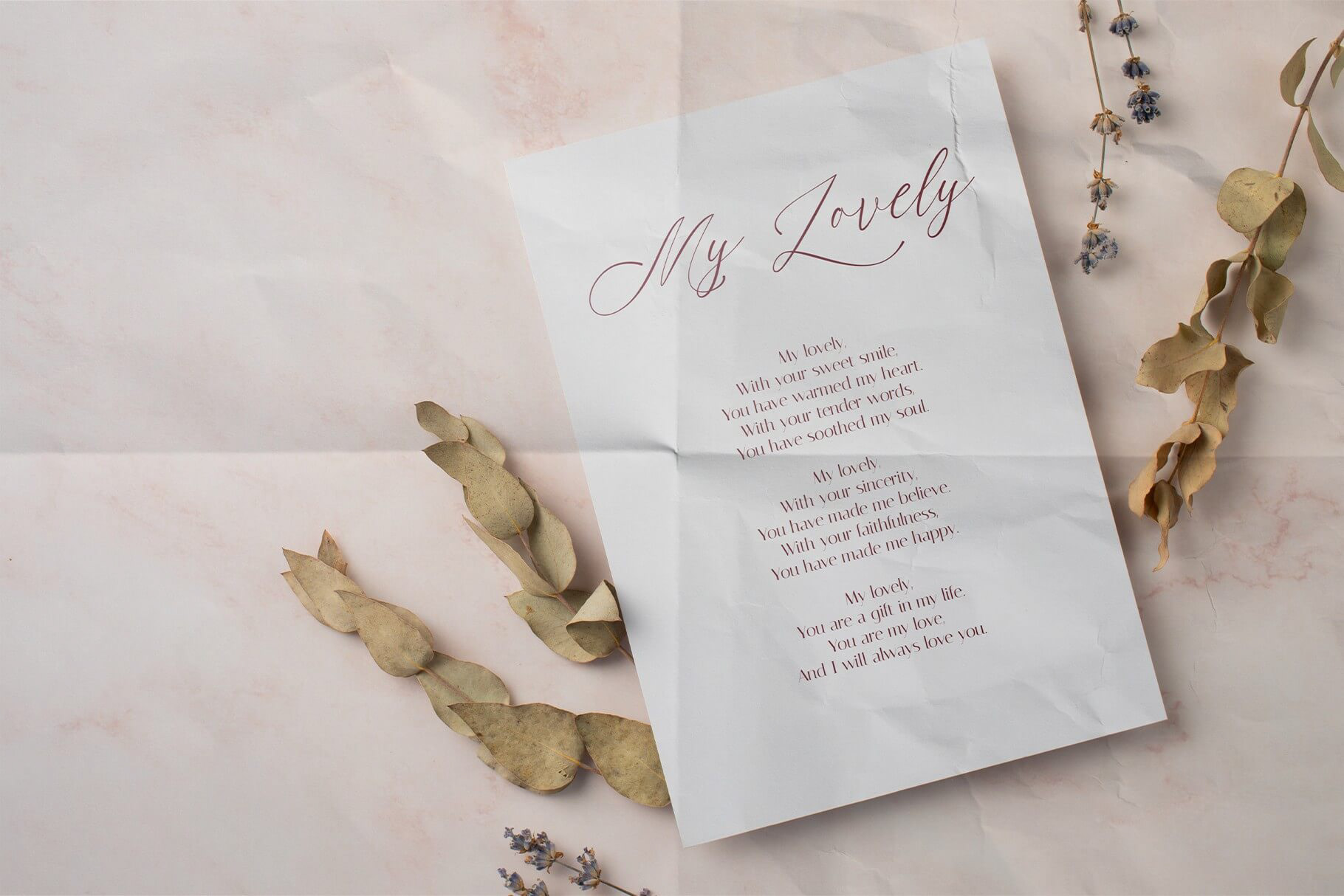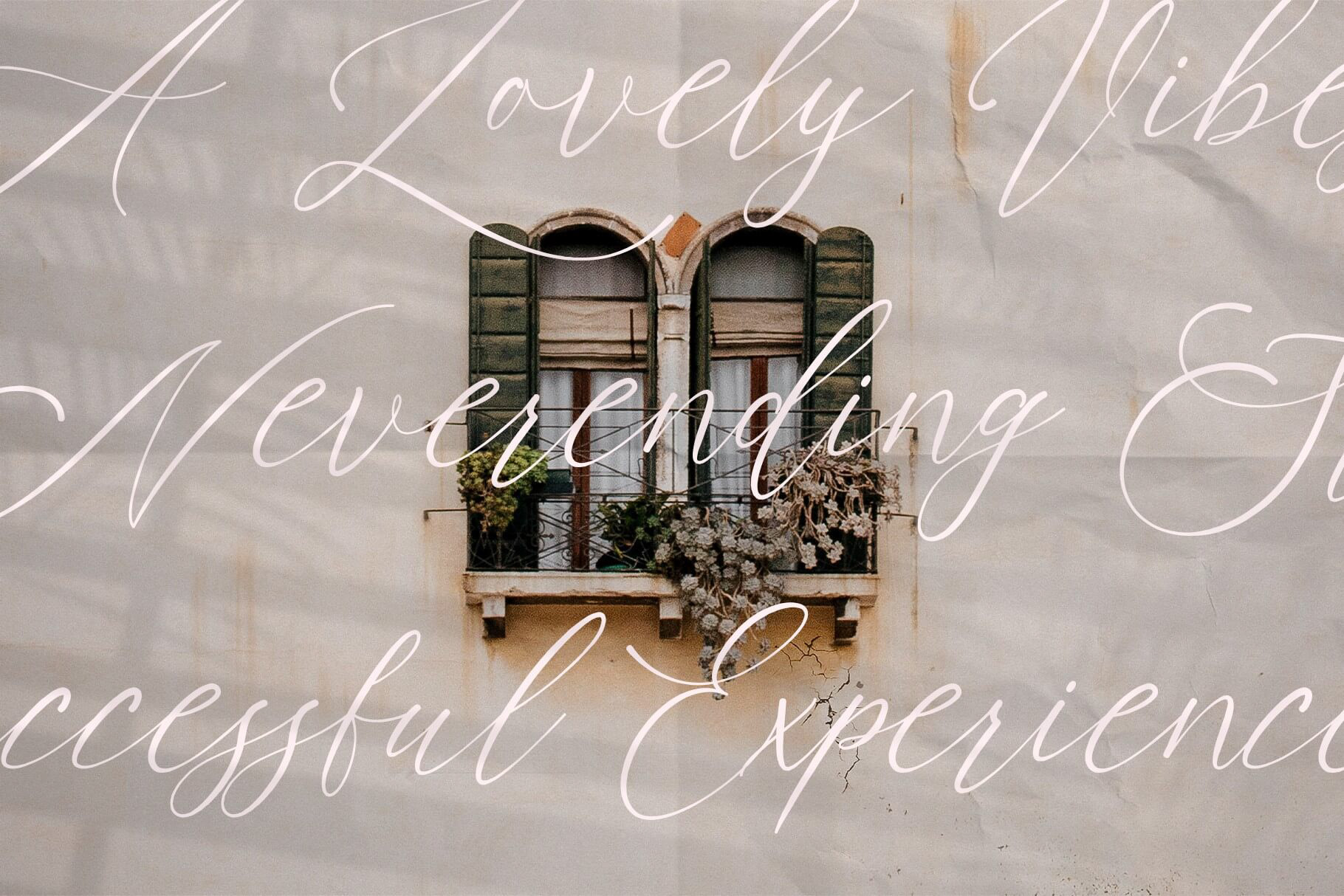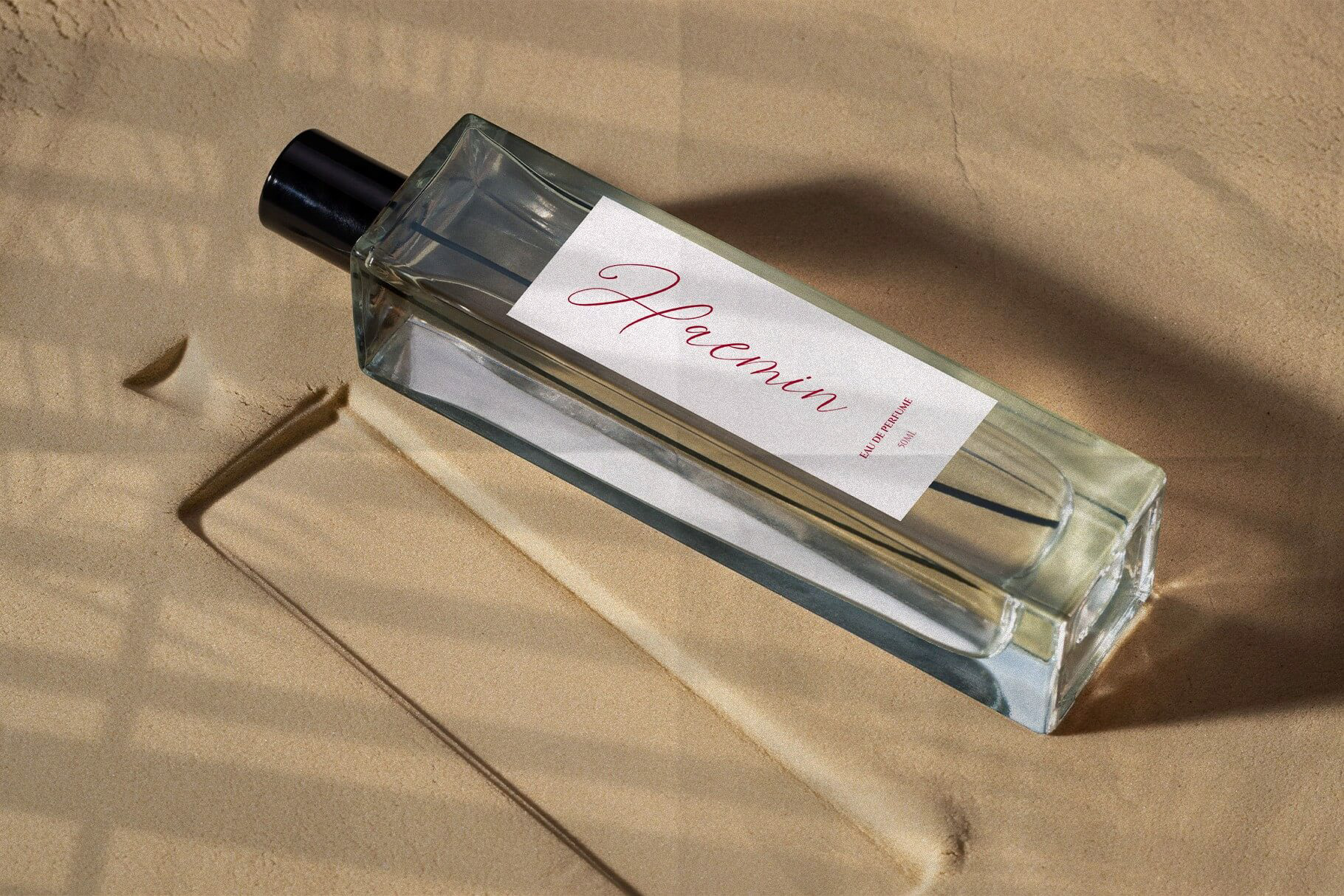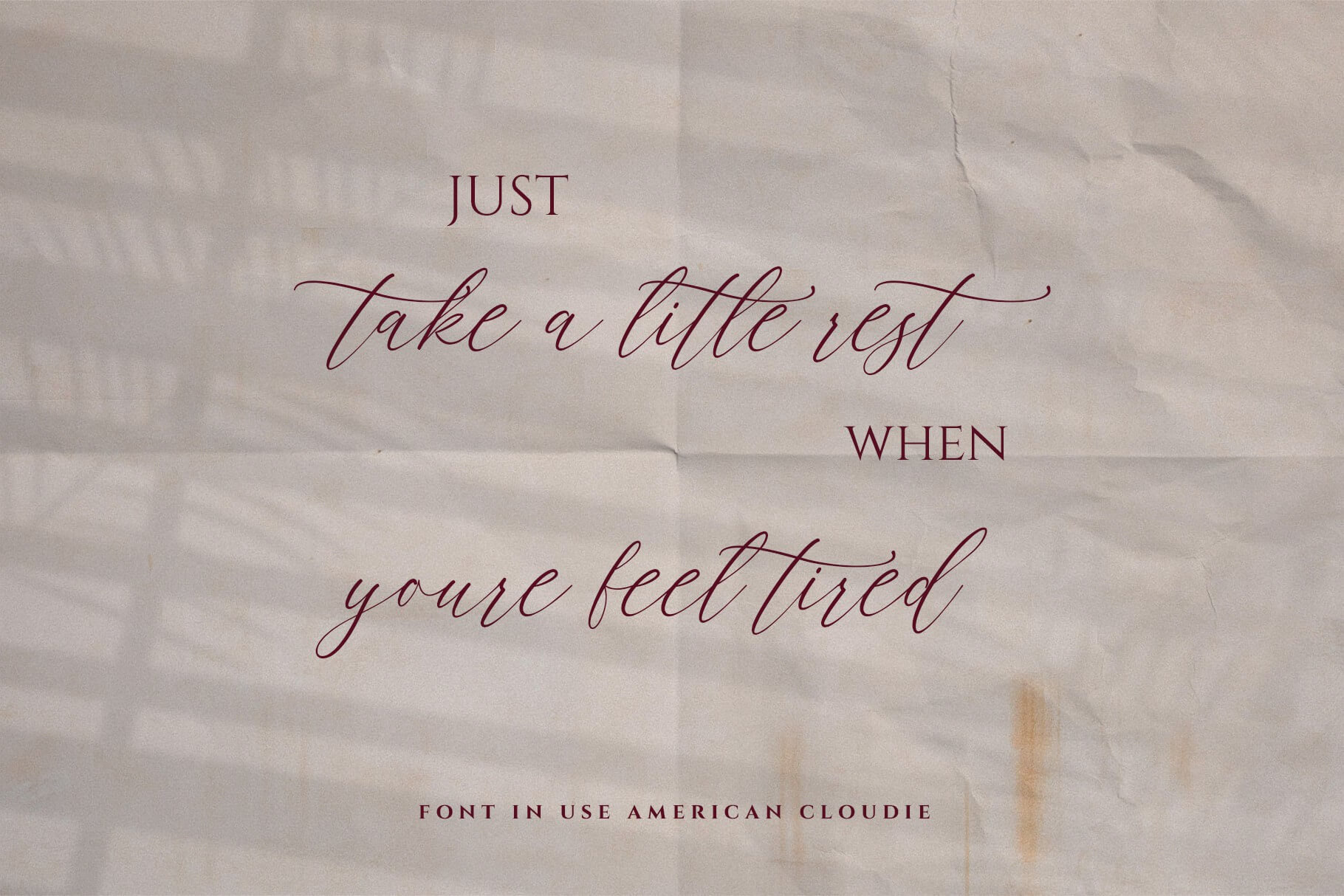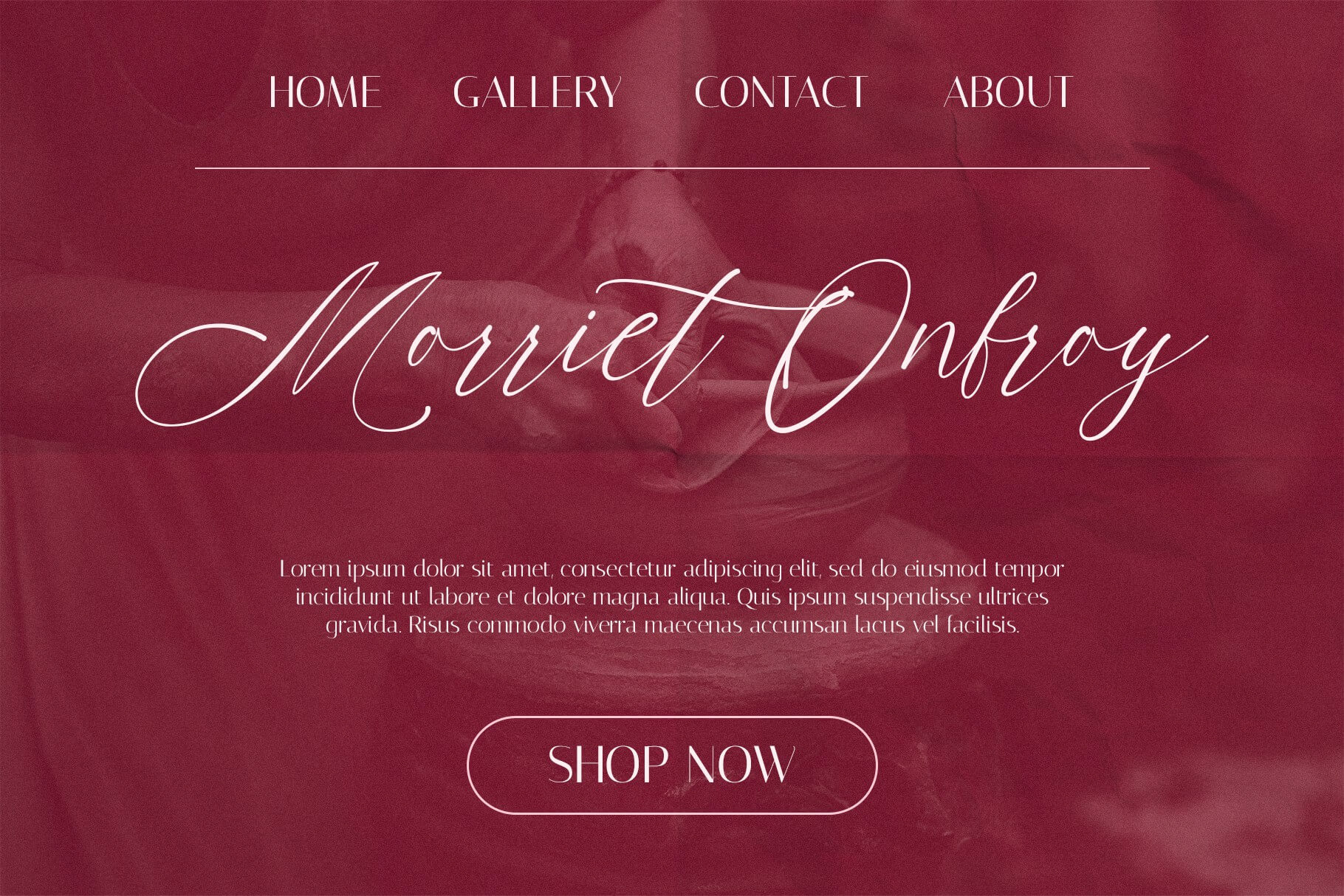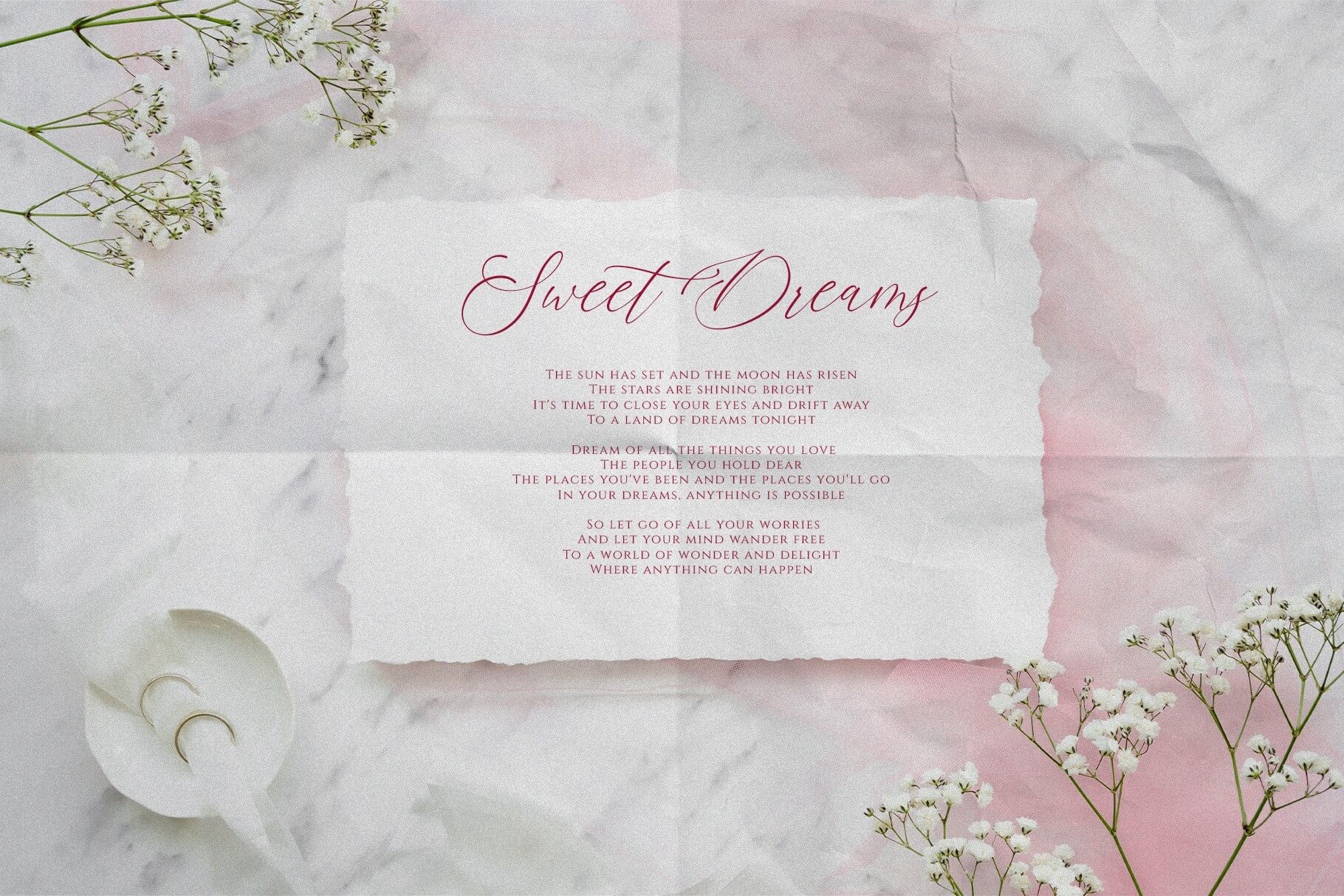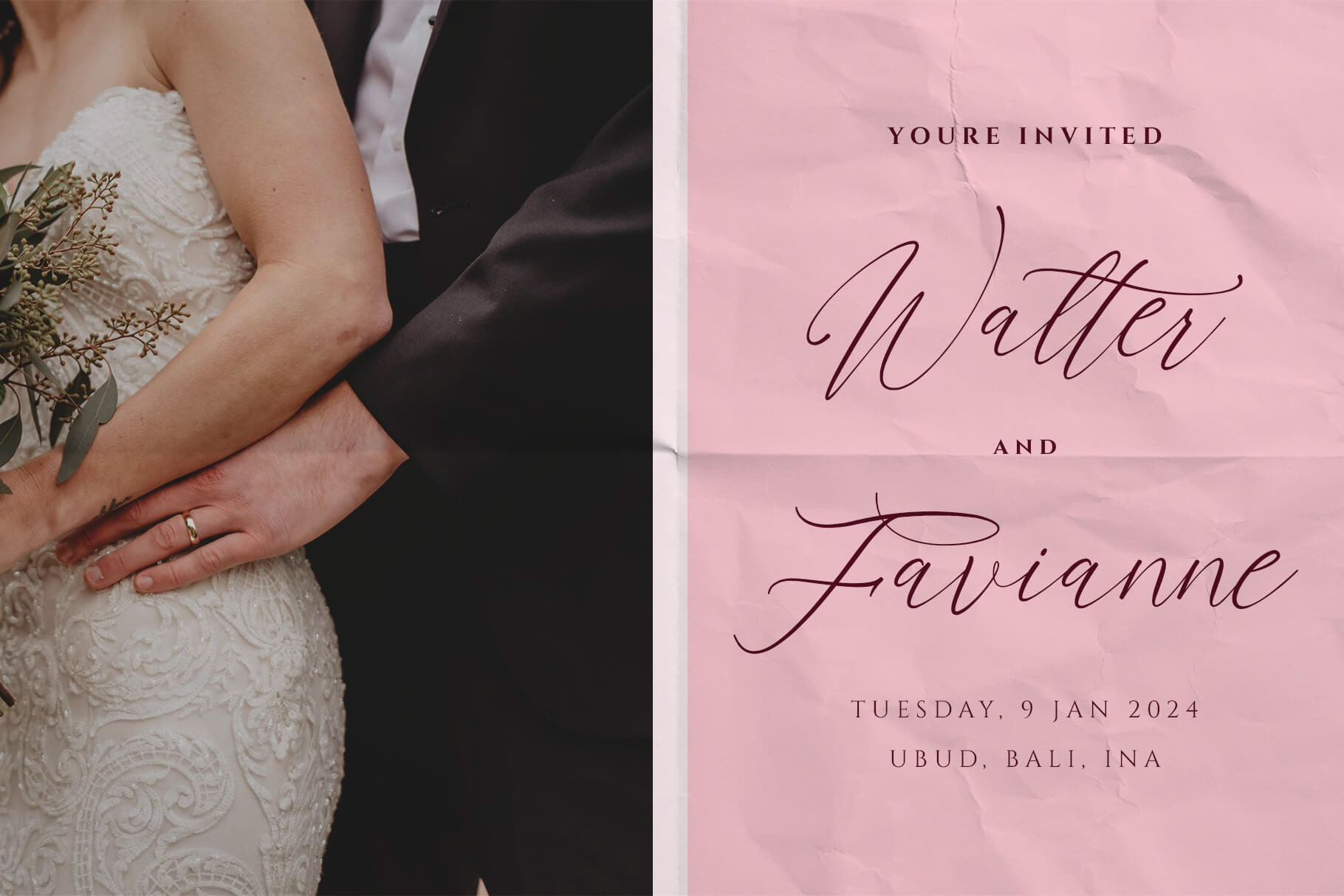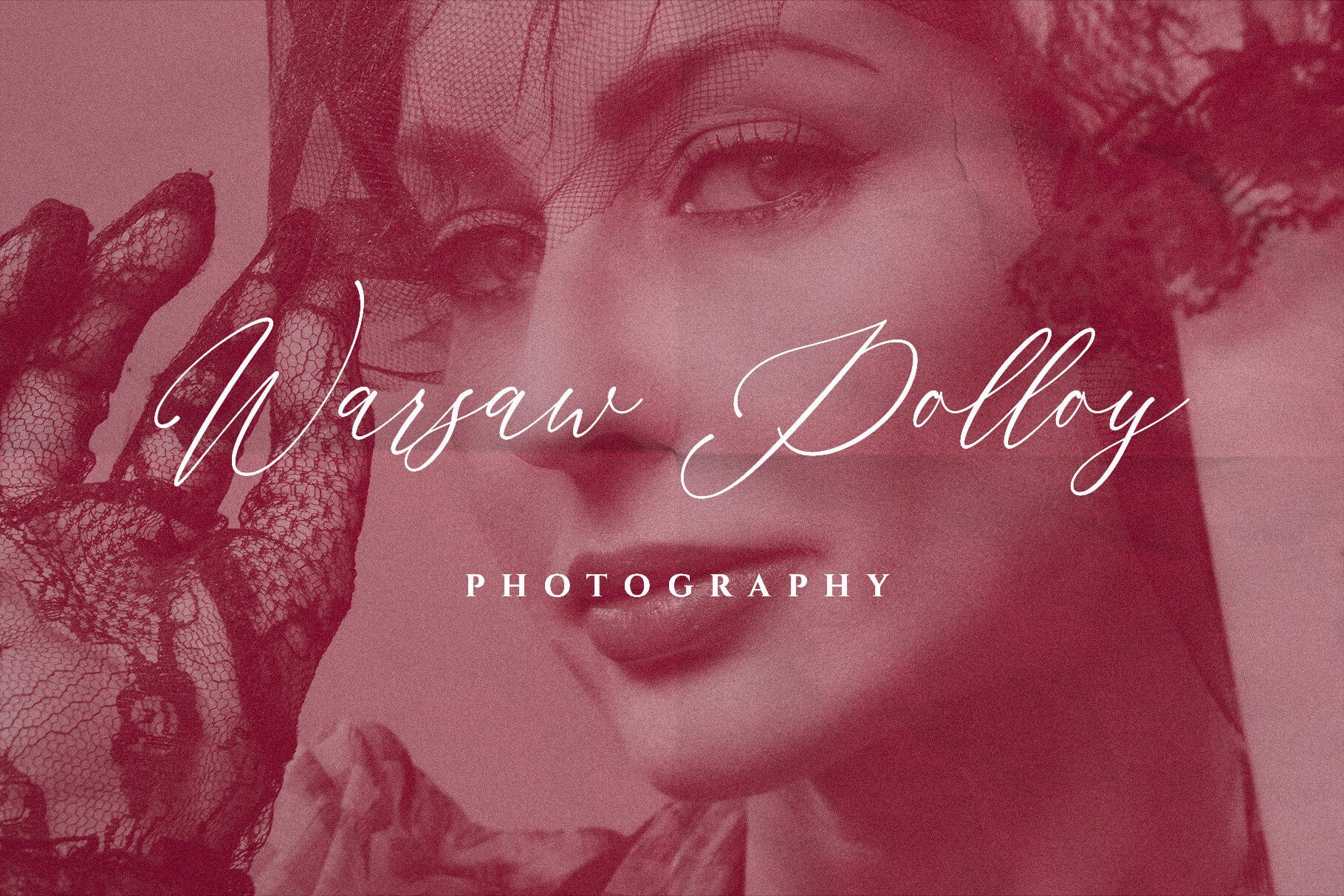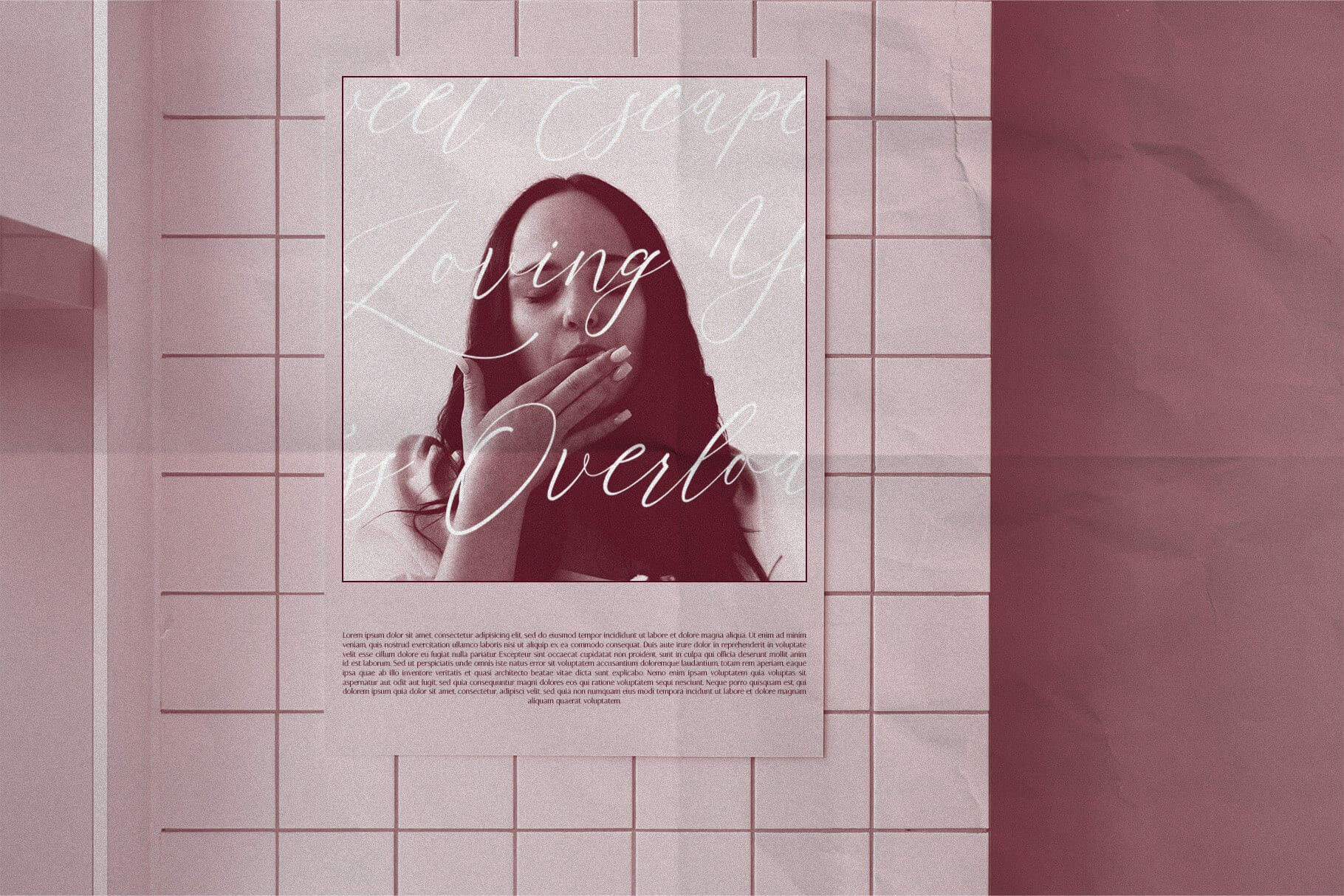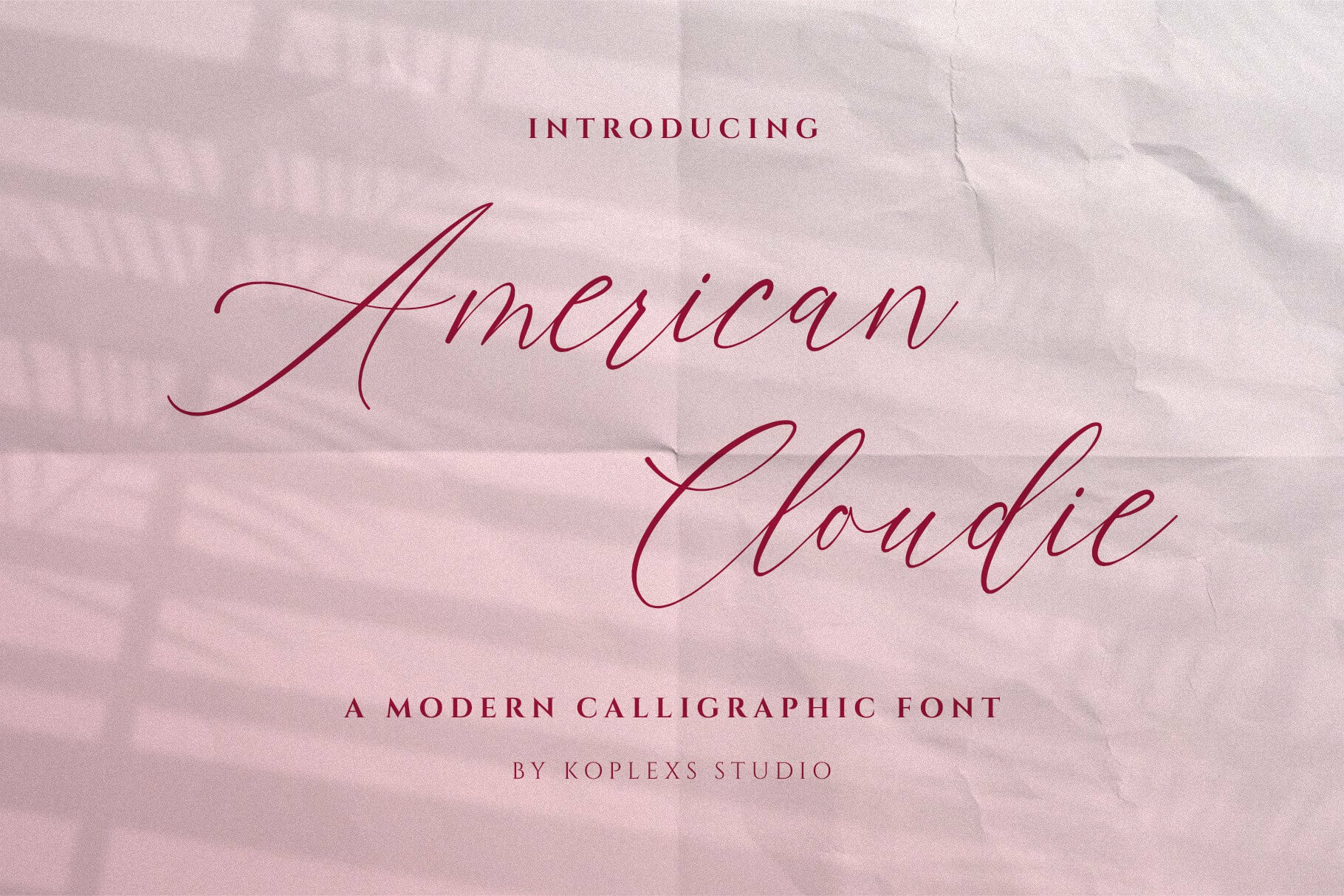
✨ Introducing American Cloudie - Modern Calligraphy Script Font ✨
Step into a world of elegance and creativity with American Cloudie, a contemporary calligraphic font designed by Koplexs Studio and Published on Coolest Font. Perfectly blending fluid strokes with delicate swashes, this font brings a touch of modern romance and poetic charm to your designs.
Why American Cloudie?
- Timeless Elegance: Ideal for wedding invitations, event branding, and luxury packaging.
- Versatile Styling: Features alternate characters and ligatures for custom typography.
- Dreamy Aesthetic: Perfect for social media quotes, book titles, and art prints.
- Multi-Purpose: Works seamlessly in both digital and print media.
Whether you're crafting a serene Bali soirée invitation or weaving a tale of midnight dreams, American Cloudie ensures your designs shine with sophistication and soul.